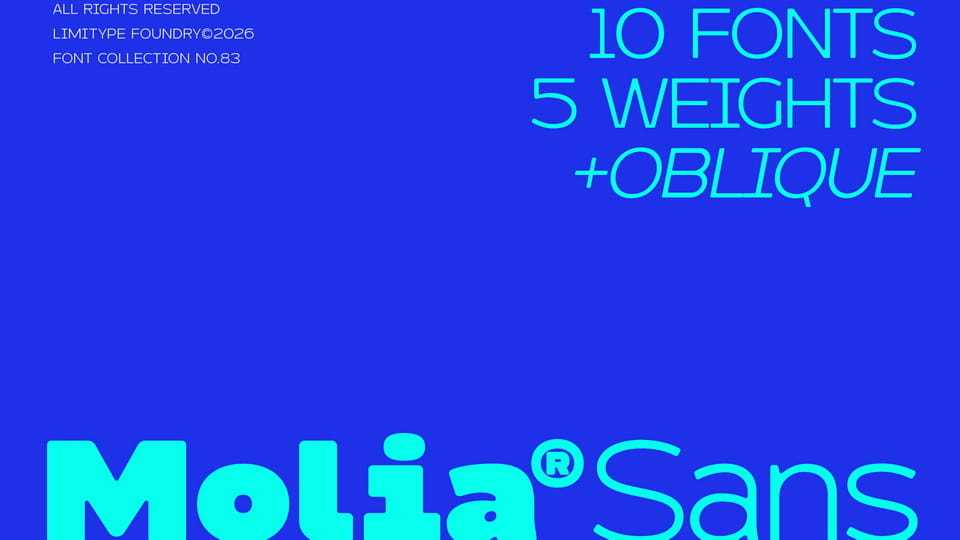
Download Molia font, a modern sans serif typeface that blends the clarity of a monospaced structure with soft rounded grotesque forms, creating a balance between technical precision and friendly aesthetics.